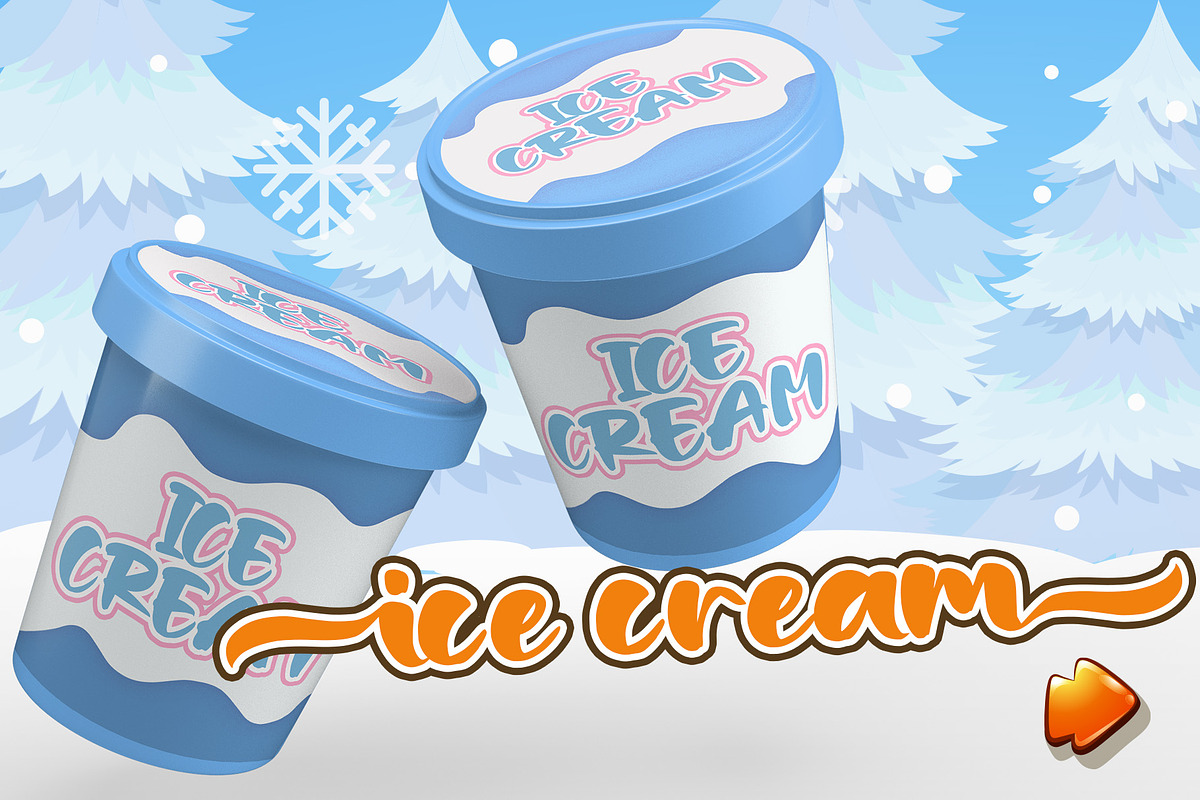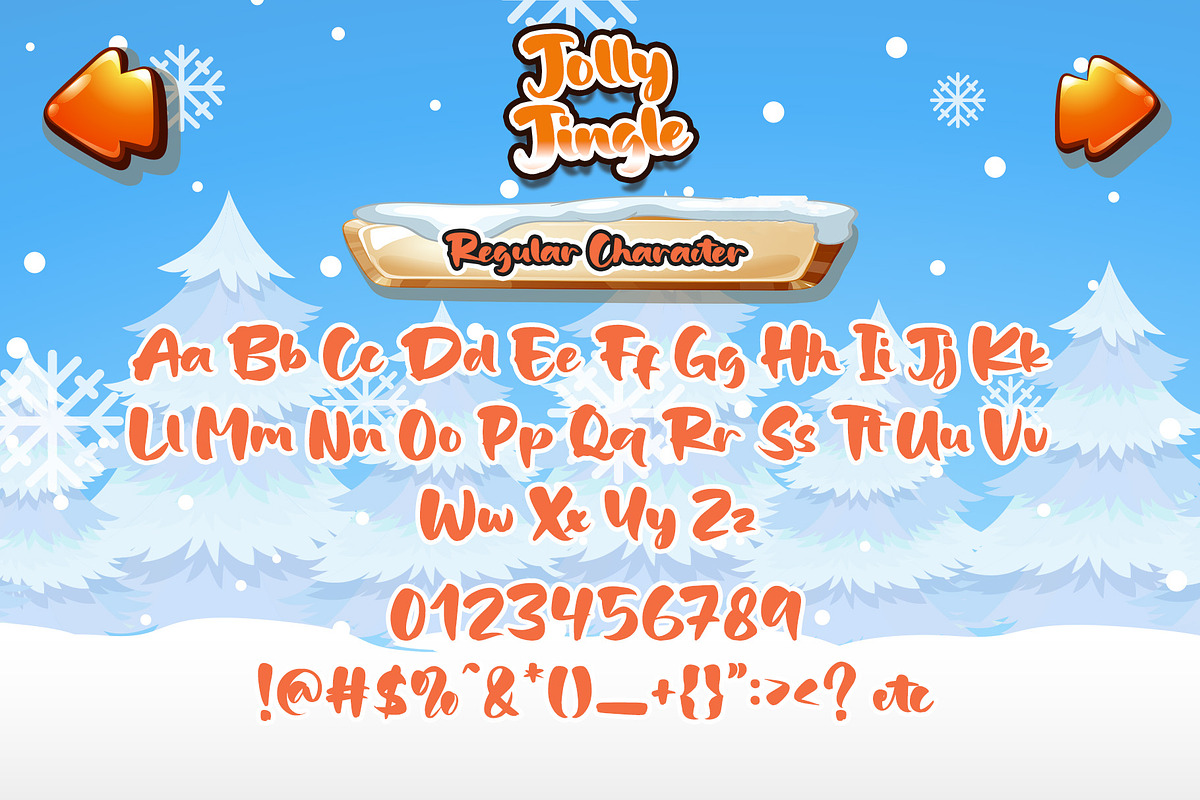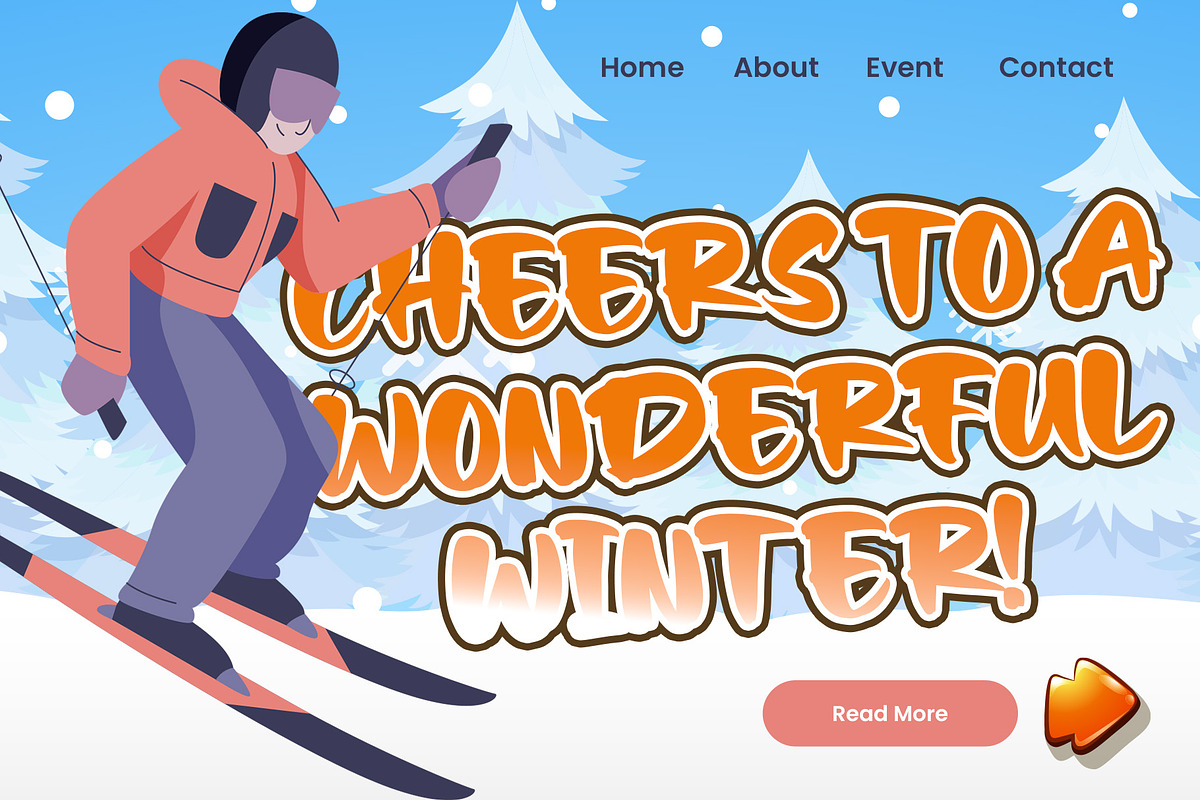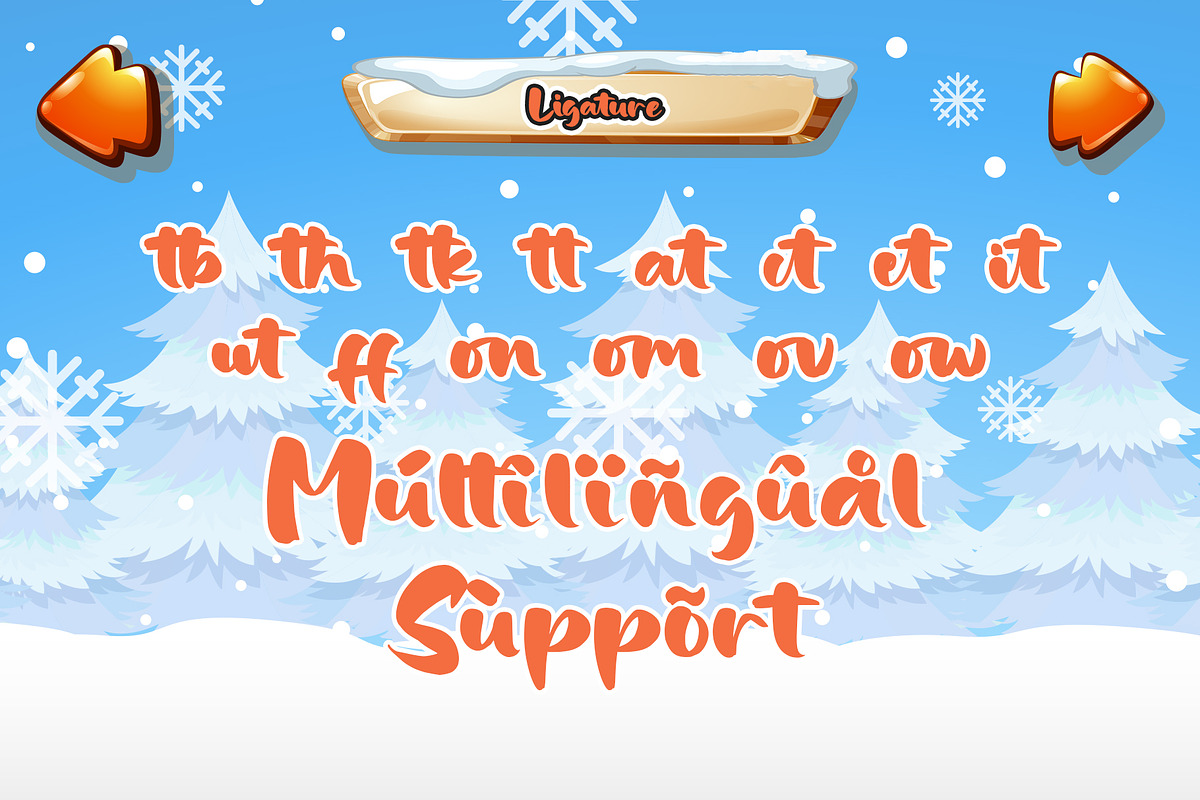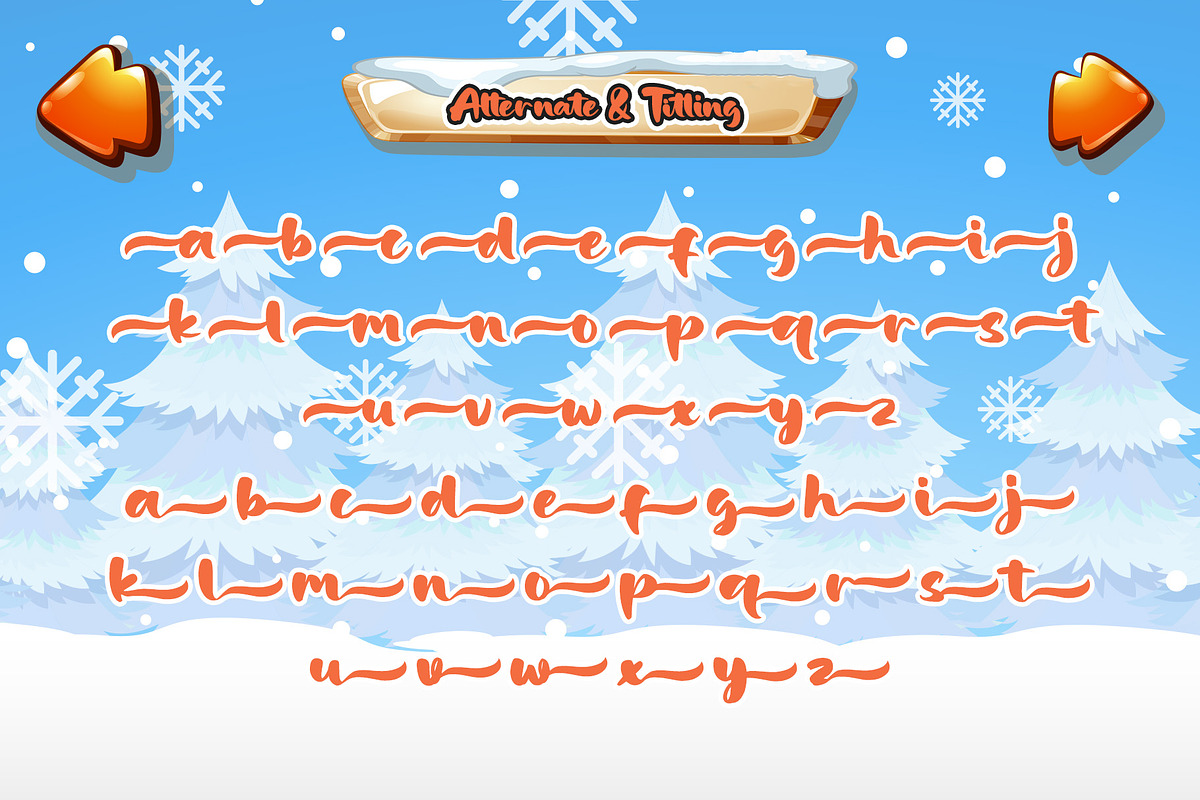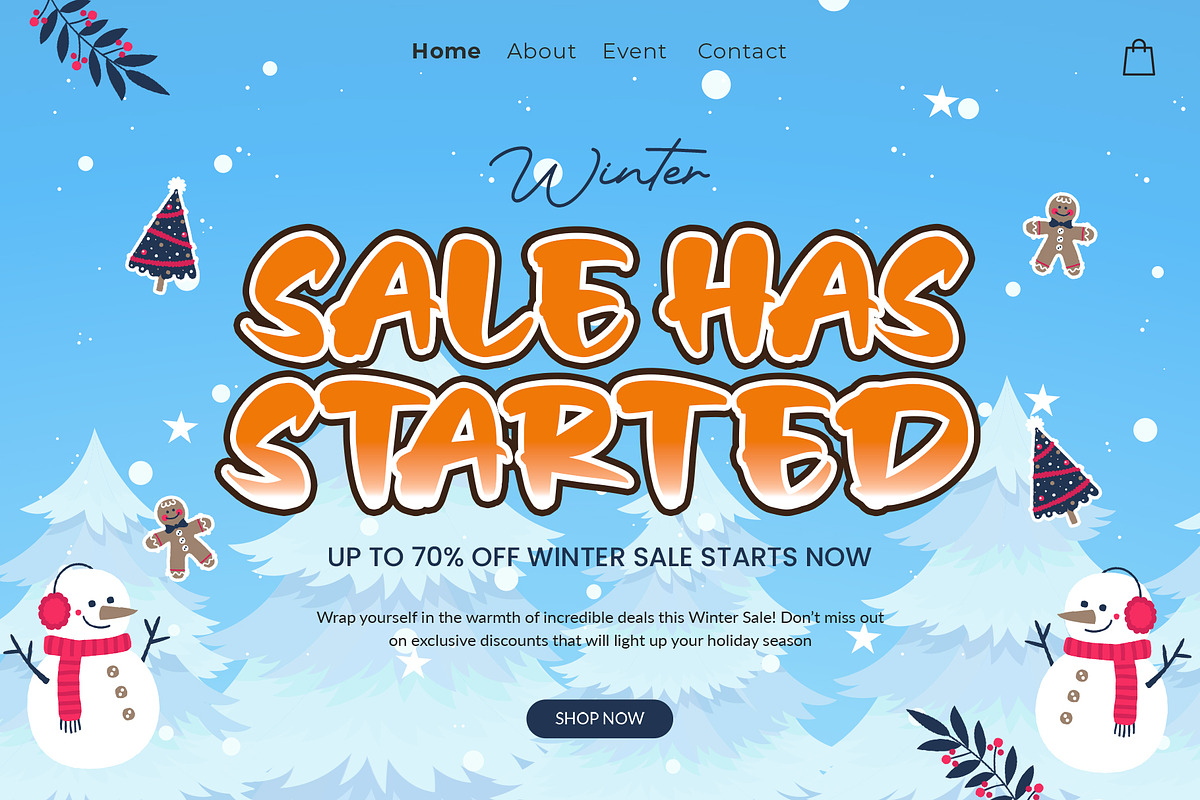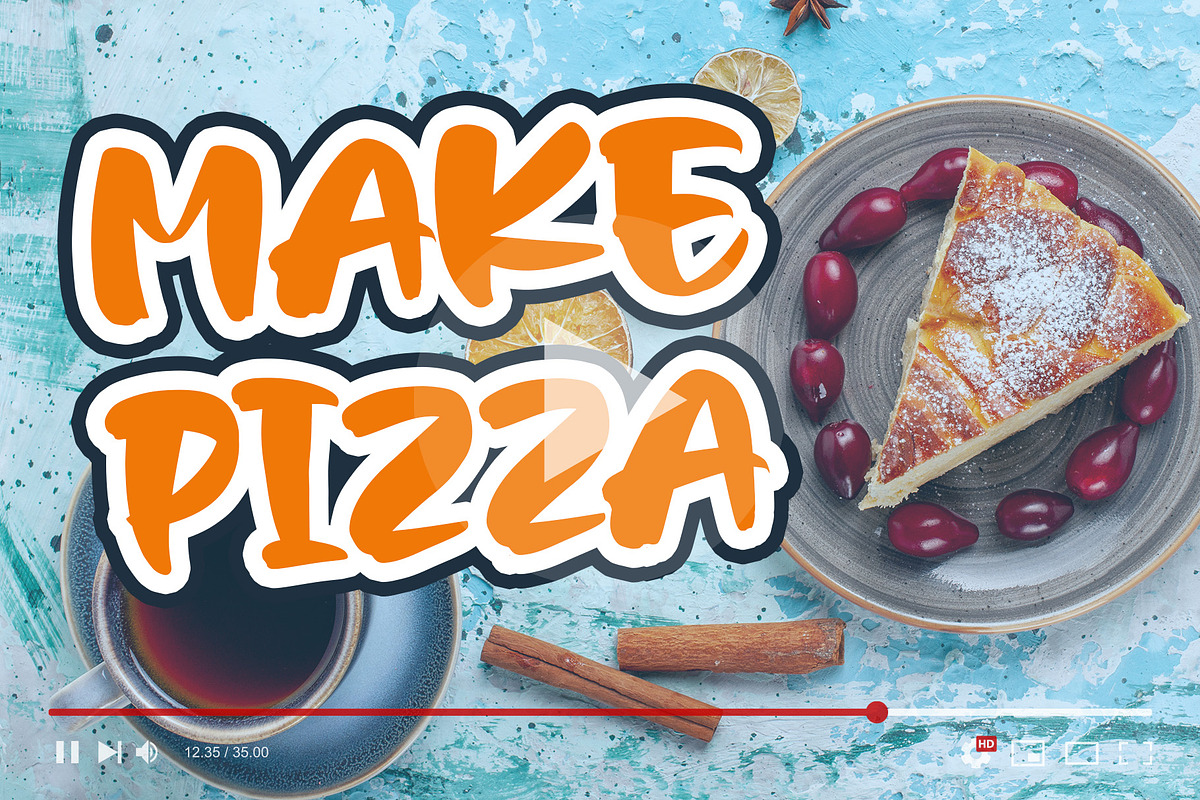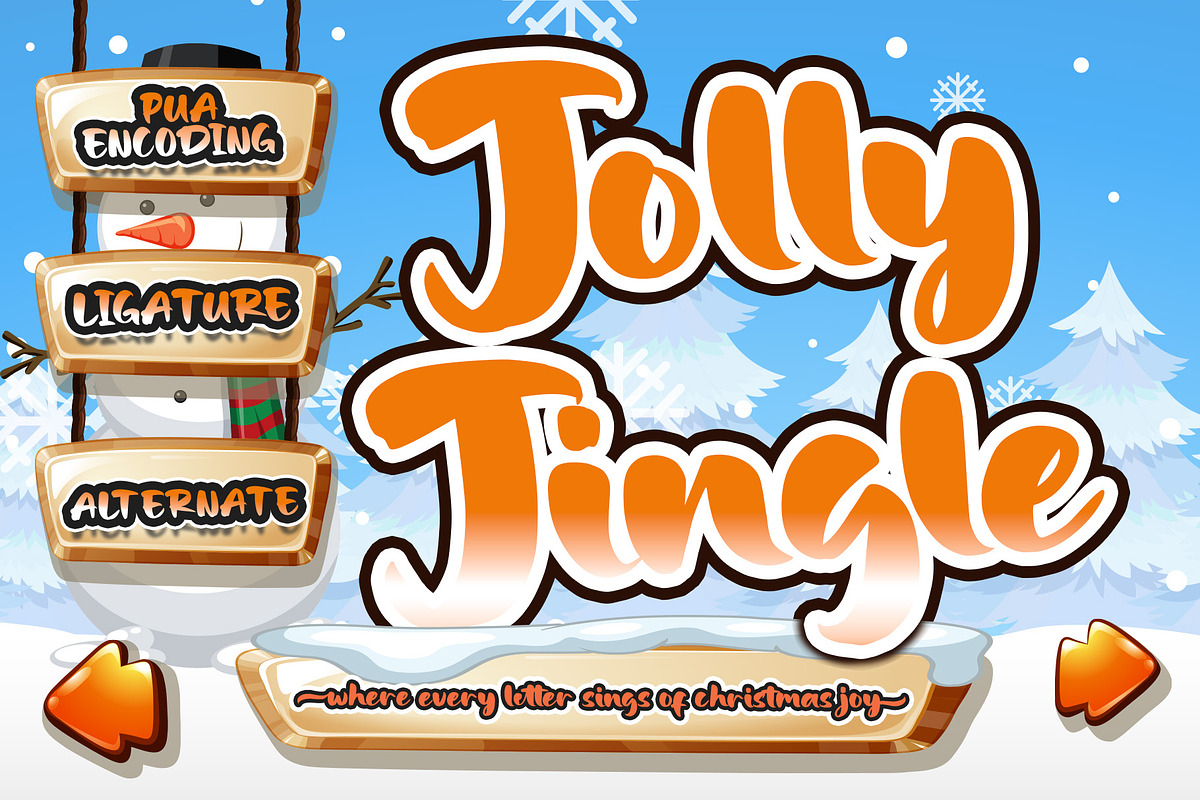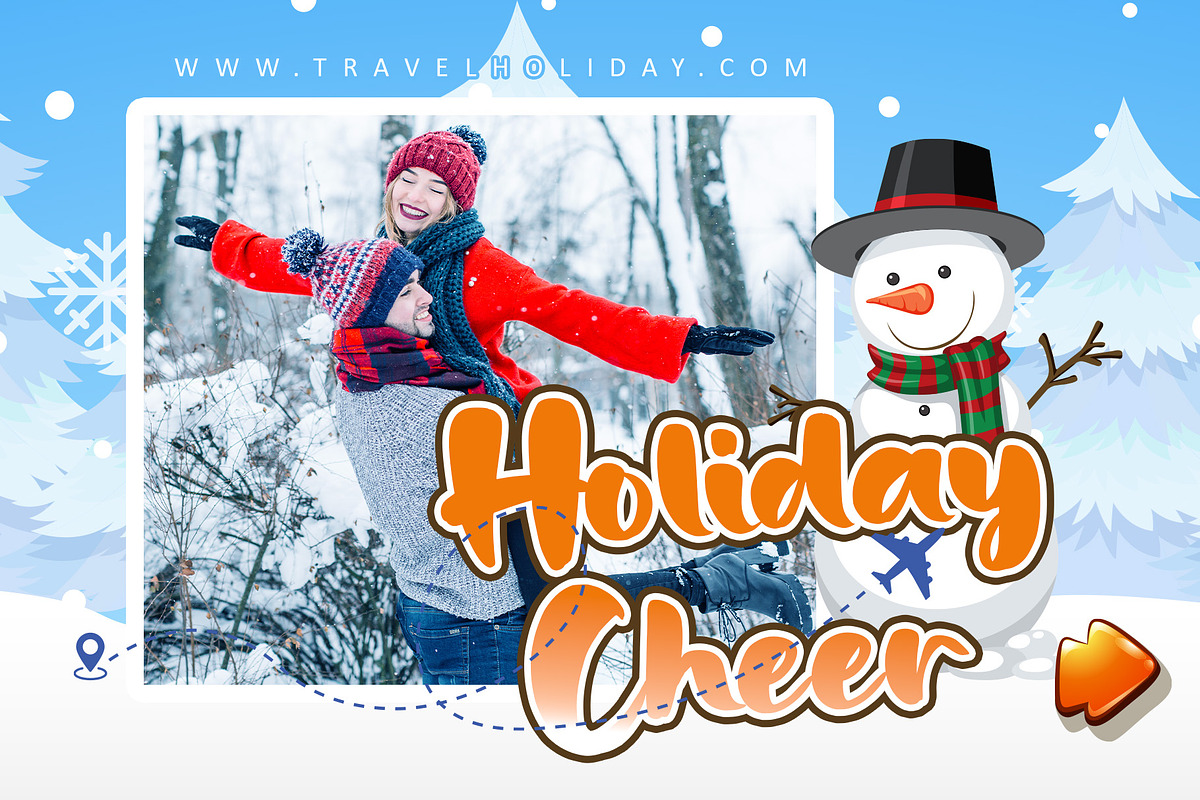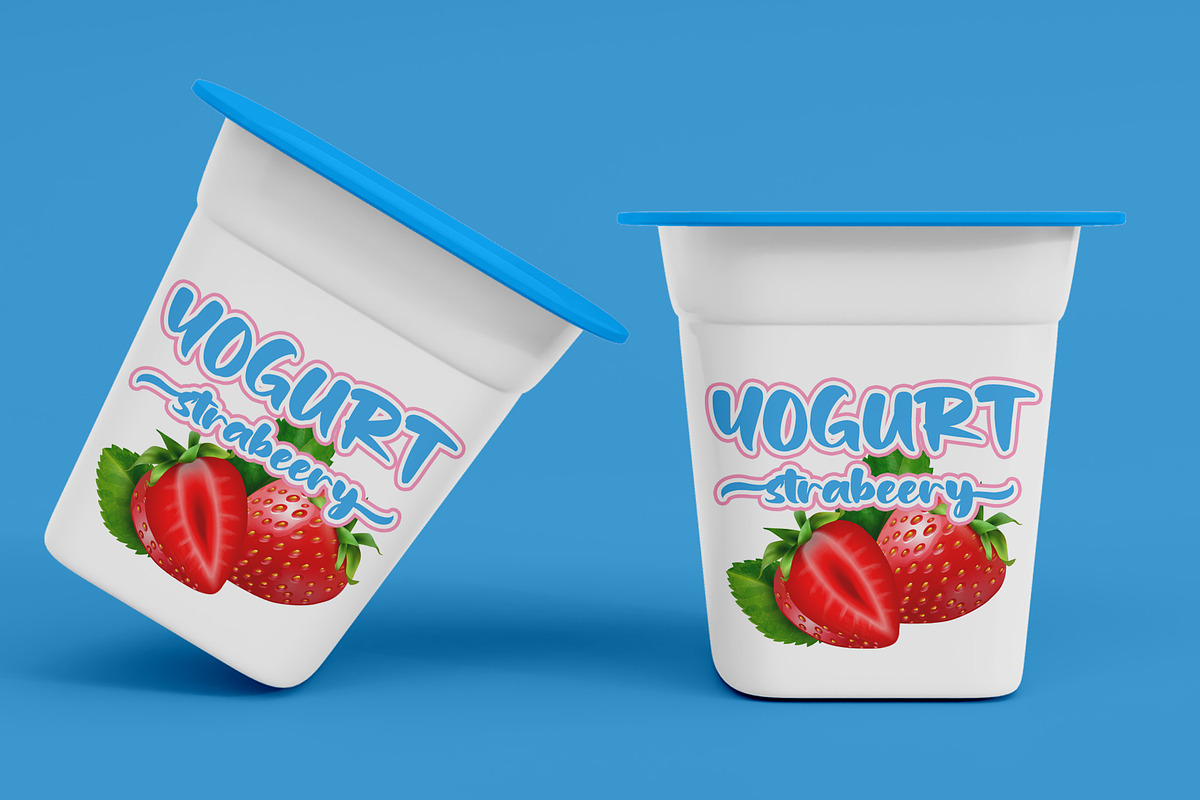
Jolly Jingle
Introducing Jolly Jingle, a bold handwritten font that captures the festive spirit of Christmas with a playful, energetic twist. Designed to bring joy and vibrancy to your holiday projects, this font boasts bold strokes and lively letterforms that are perfect for adding a whimsical touch to any creation. Whether you're designing for game apps, posters, logos, or packaging, Jolly Jingle infuses your work with cheerful charm and merry vibes. Its robust and joyful style makes it the perfect companion for branding, advertising, and creative ventures that demand attention. Let Jolly Jingle brighten up your designs with its festive flair, ensuring your message jingles with delight!
- Support multilingual; ä ö ü Ä Ö Ü ß ¿ ¡
- lowercase and uppercase letters
- Alternate, titling & ligature